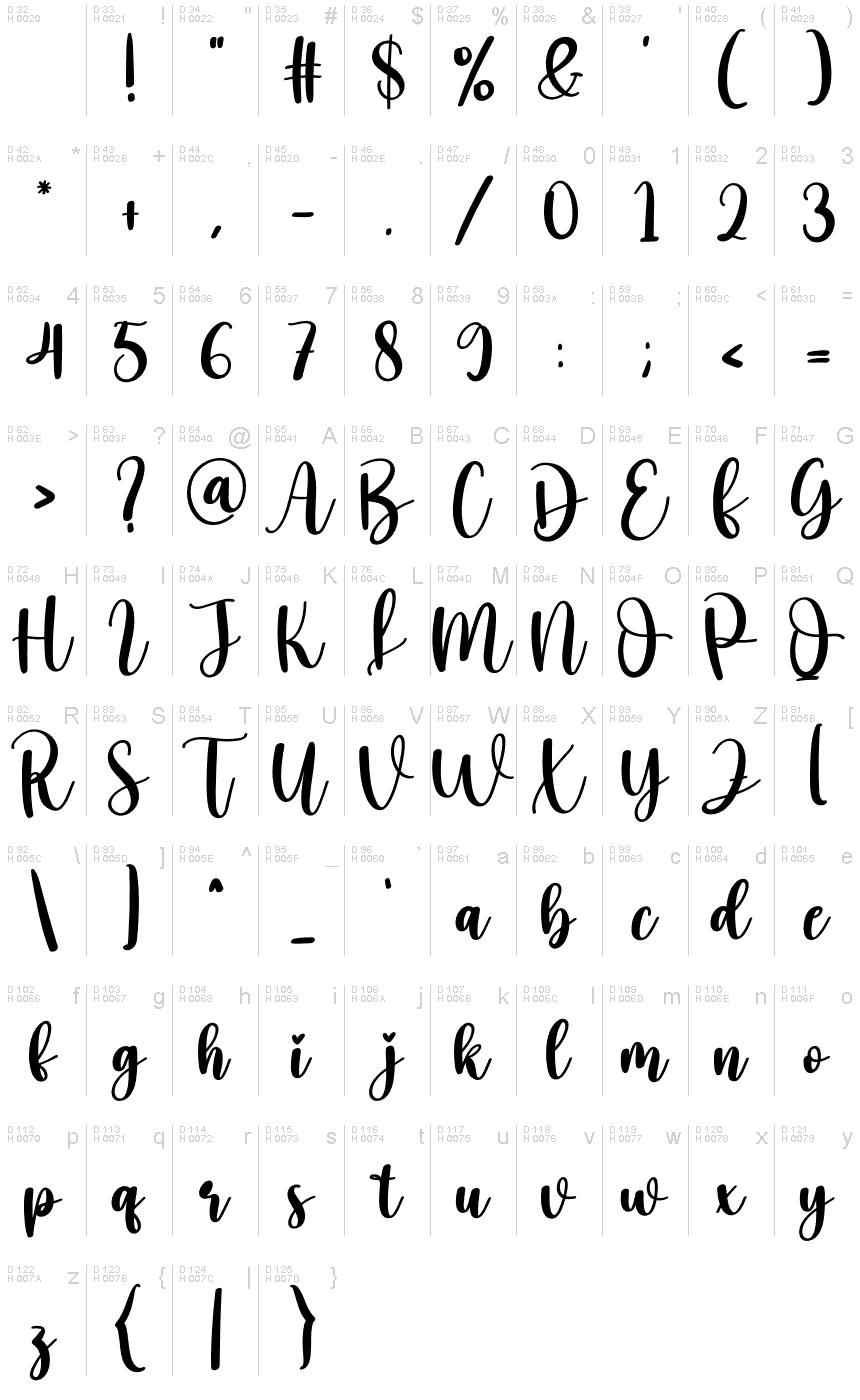
Chilly
Chilly, a charming creation by Harlek Studio, is a delightful semi-bold font that exudes an air of cuteness with its calligraphic style.
This playful typeface is perfect for children's book covers, greeting cards, and invitations, adding a touch of whimsy to any project. Its smooth curves and gentle strokes make it ideal for crafting adorable logos or creating eye-catching social media posts. Whether you're designing for a baby shower or aiming to infuse your brand with an endearing vibe, Chilly will bring warmth and charm to your design endeavors.